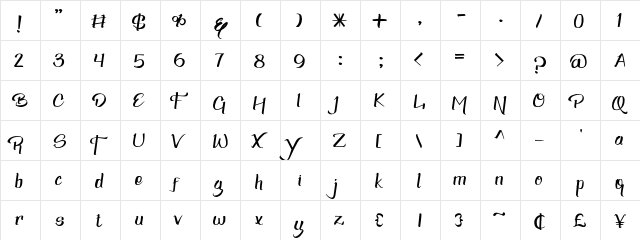
Elliot Regular
| Foundry | TGIF |
| Designer | TGIF |
Design Context for Elliot Typeface
Elliot is a composed and adaptable typeface that performs quietly and consistently across a wide range of design contexts.